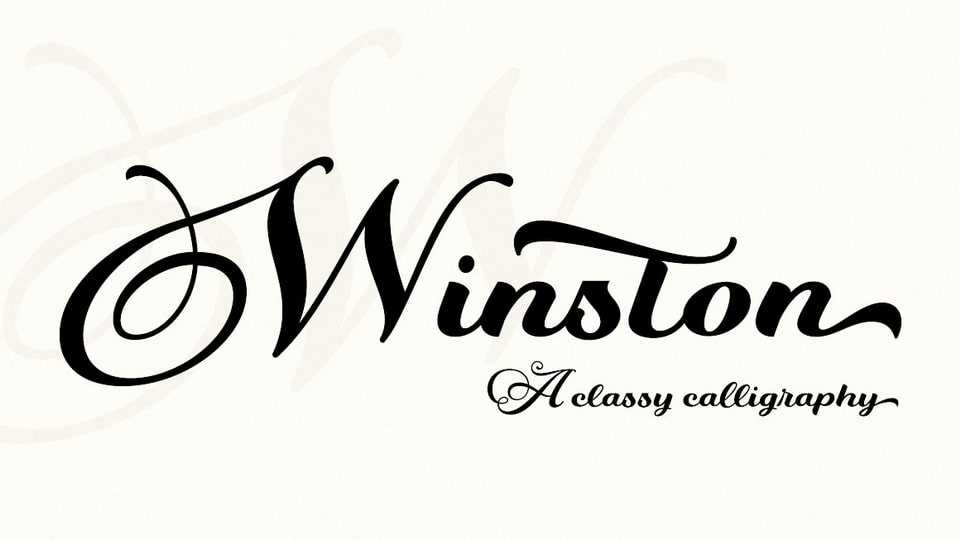
Download Winston font, a stylish script, described by an elegant touch, perfect for your favorite projects. Fall in love with its incredibly distinct and timeless style and use it to create spectacular designs.